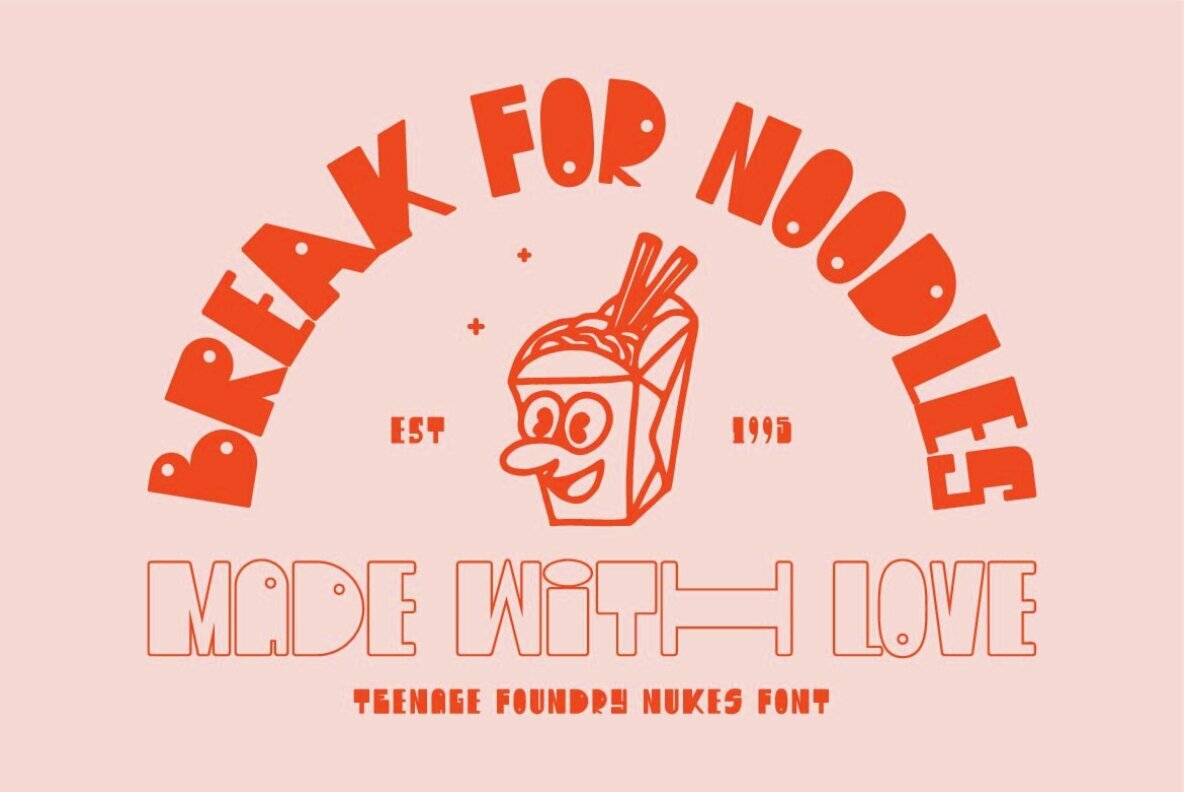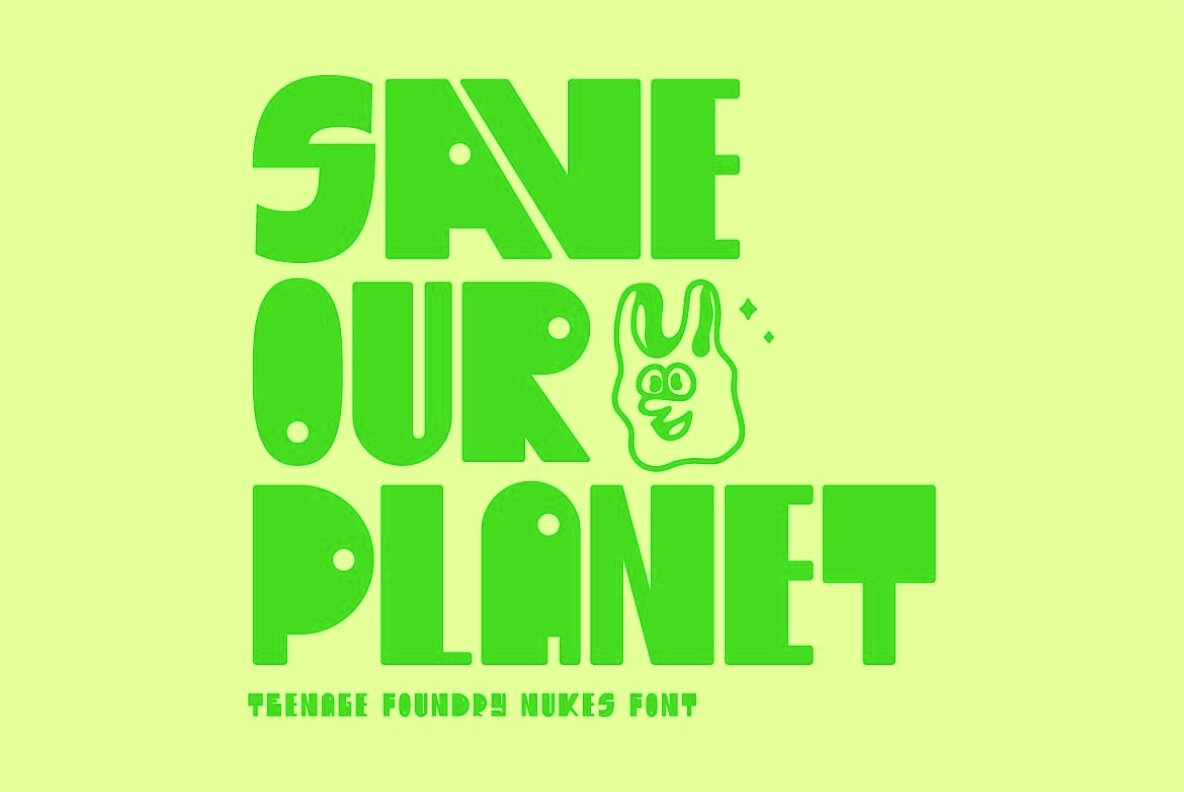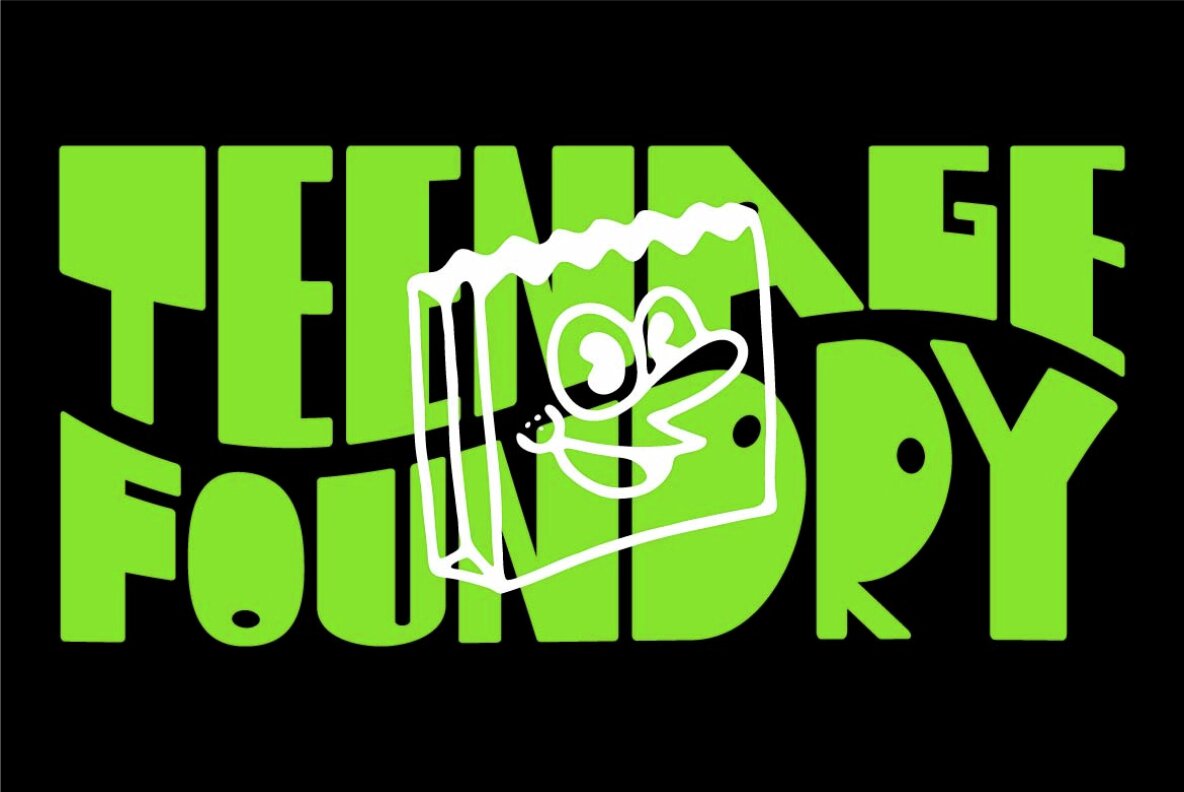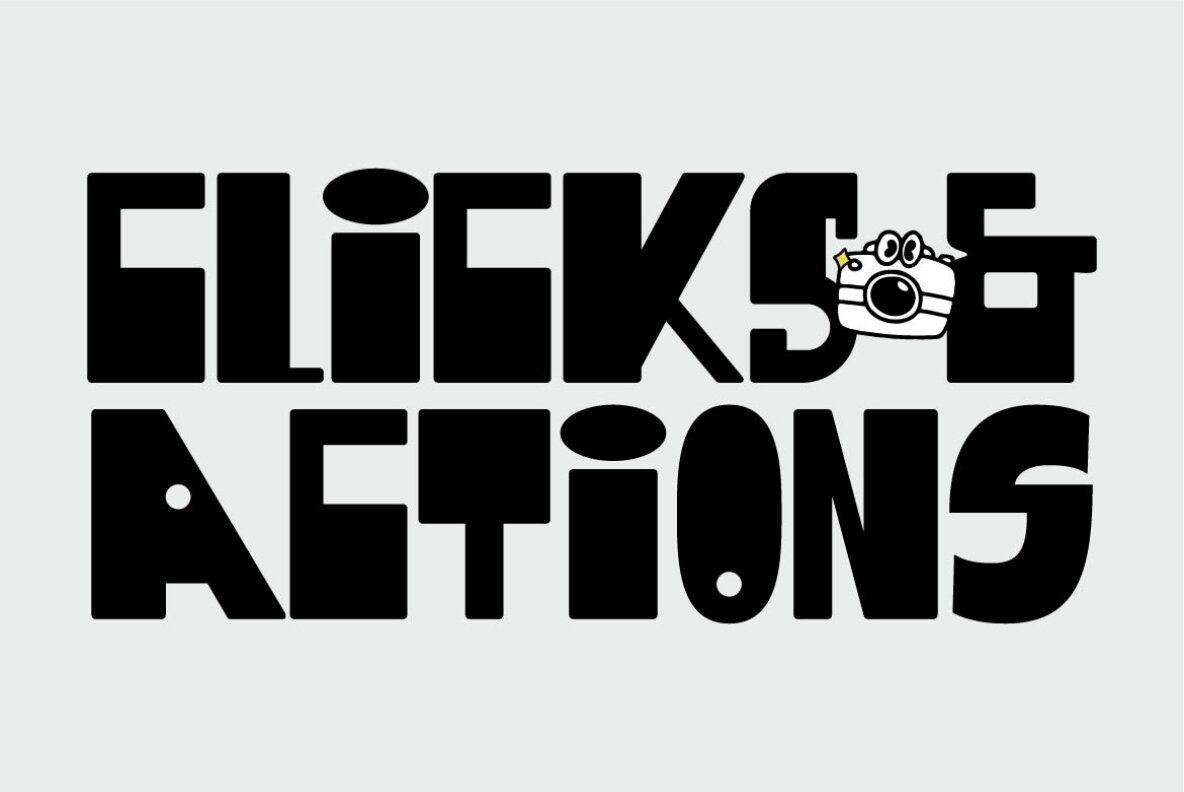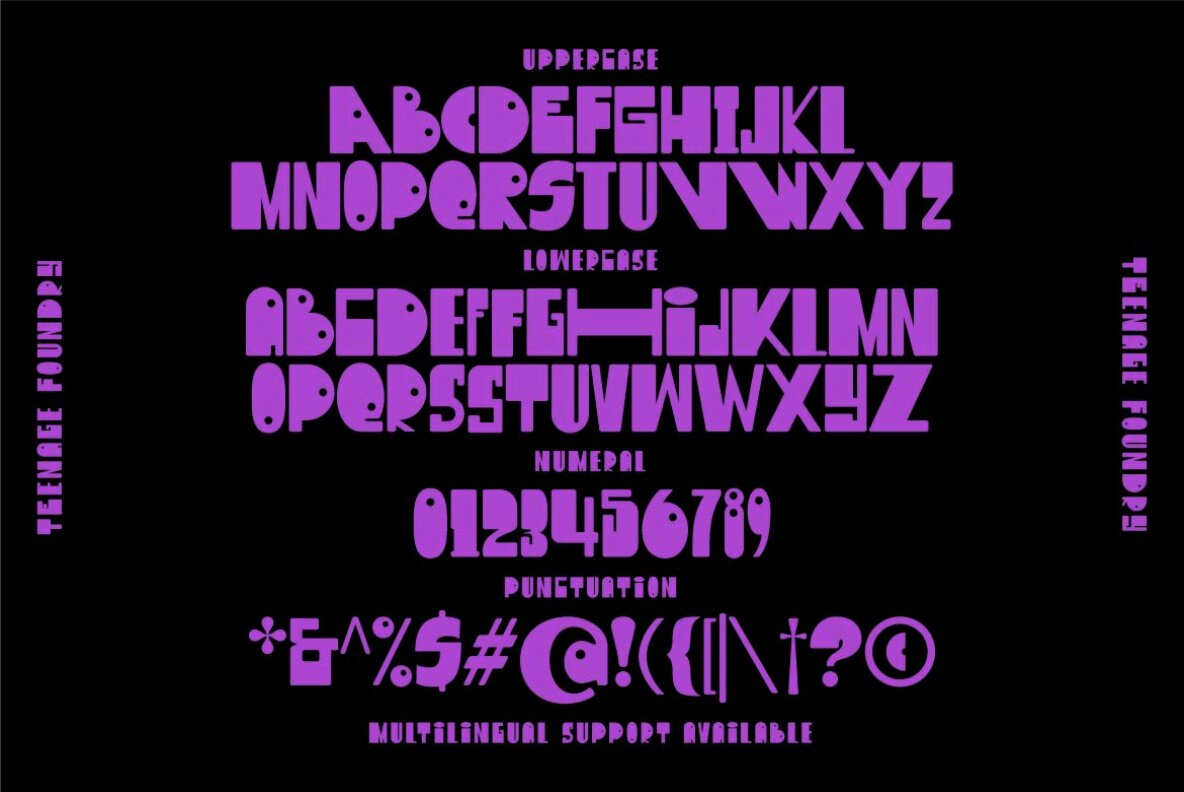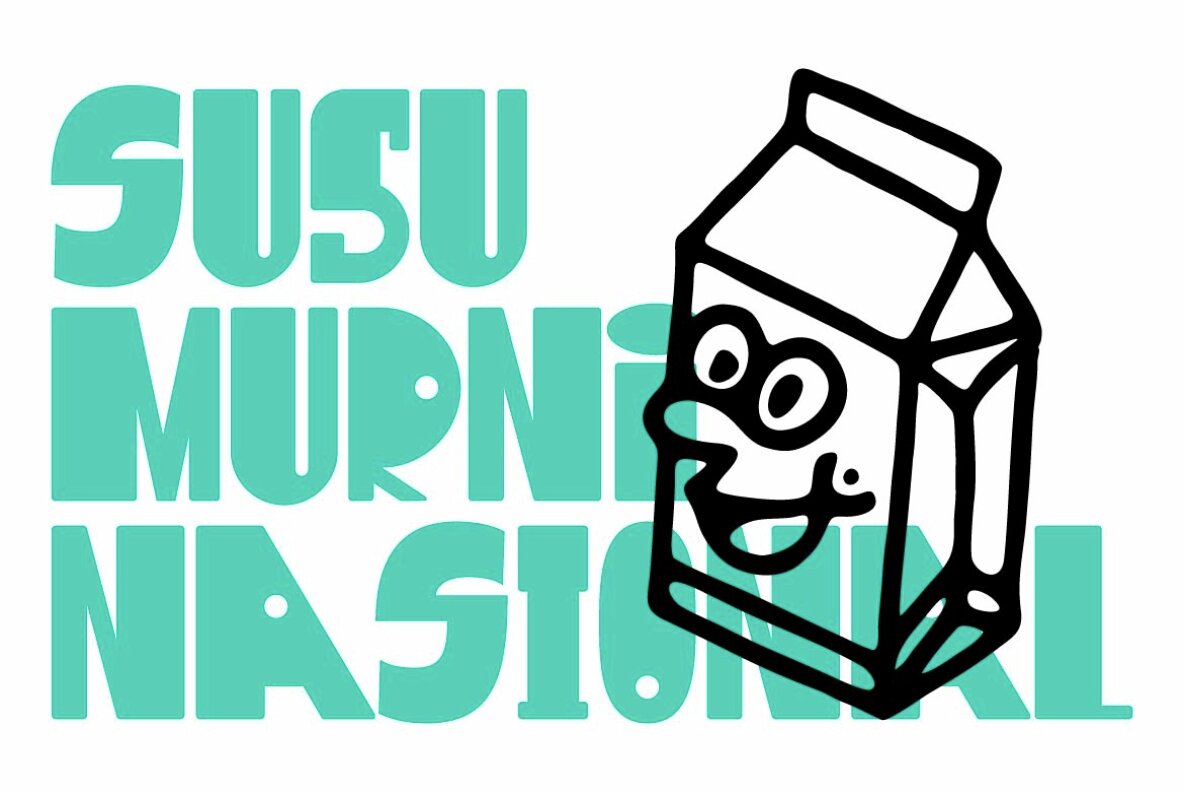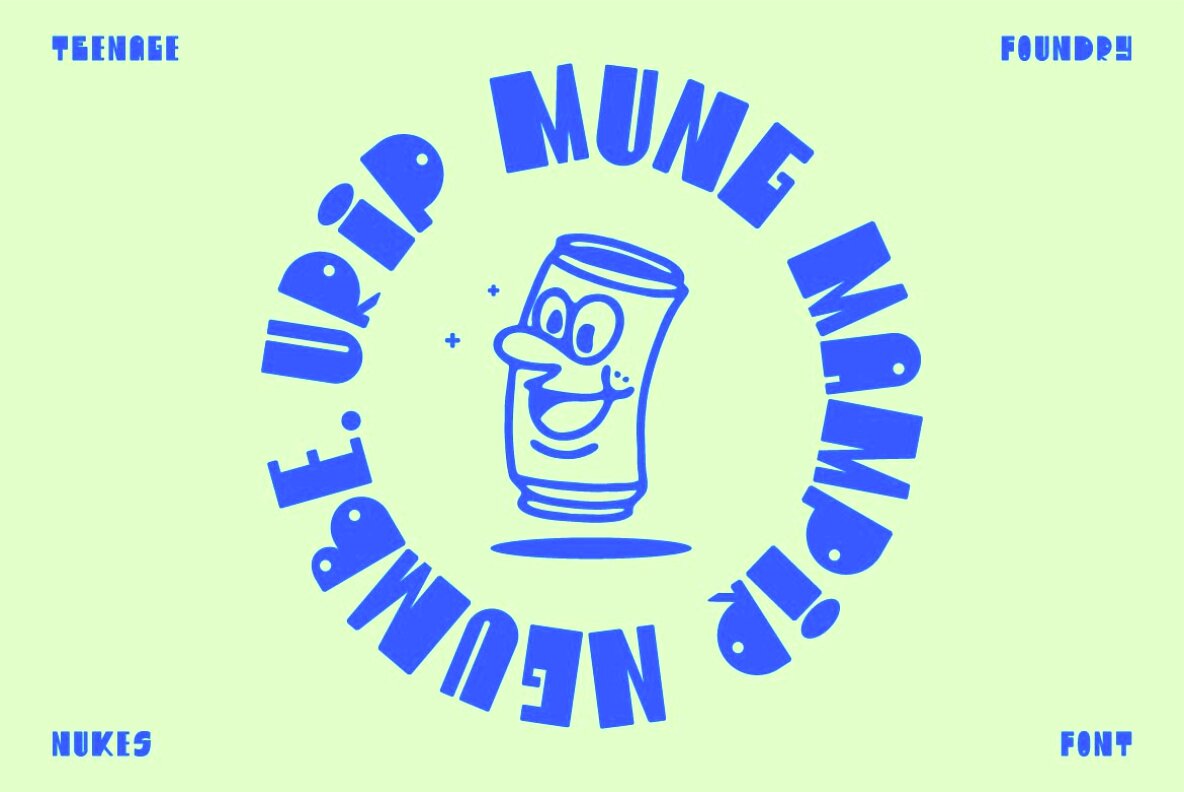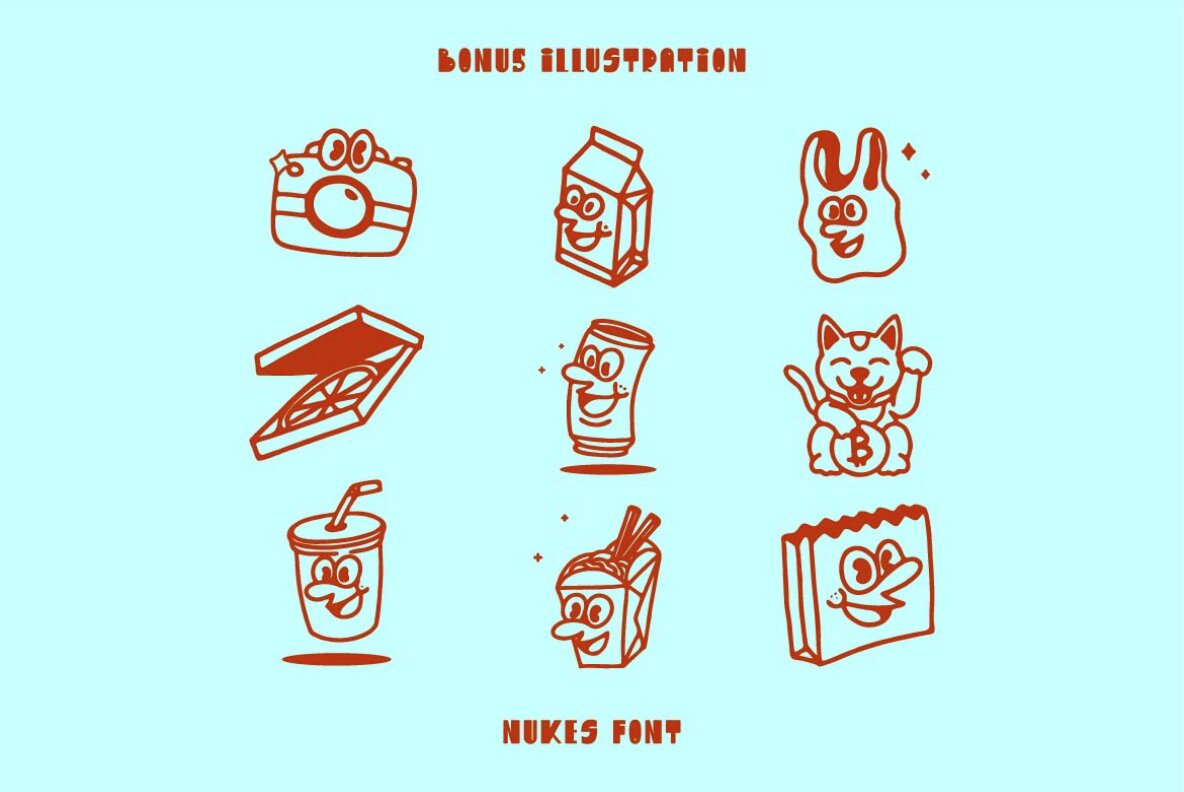
TF Nukes Font
Introducing TF Nukes – the boldest display style font that will capture the attention of your audience and make your message stand out! This bold, strong font is perfect for headlines, titles, and any other text that needs to make a statement. Nukes comes with a bonus of 9 illustrations that will take your designs to the next level. This illustration fits perfectly into the font and will give your project a cohesive and professional look. A bold and striking font style will make your message impossible to ignore, while the bonus illustrations will add an extra layer of creativity to your design.